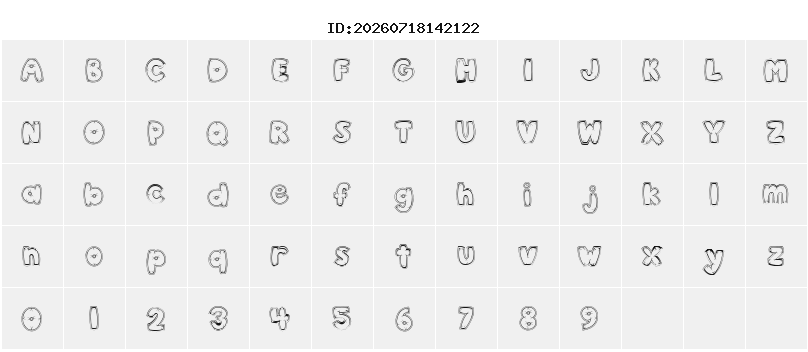
About CK Pillow.ttf
CK Pillow.ttf is a modern, elegant sans-serif font designed for ultimate readability and visual harmony. Perfect for branding, headlines, web design, and print materials.